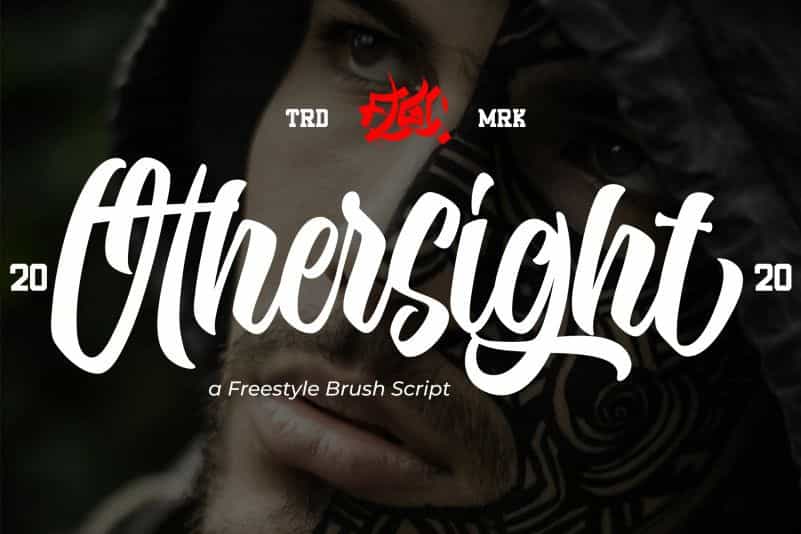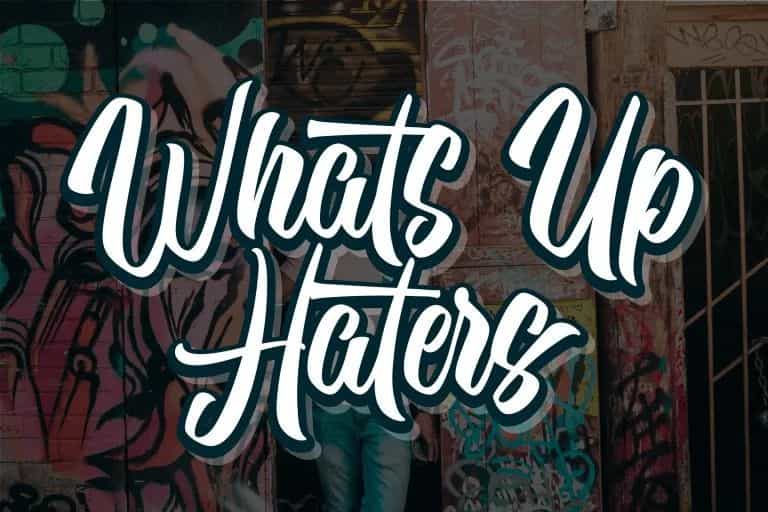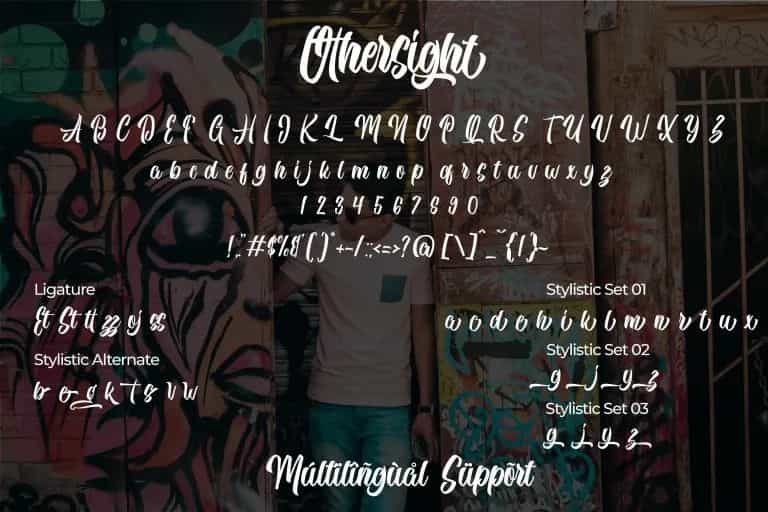
Othersight Font is a freehand brush script font. It’s a hand-made font display that has a classic poster inspiration. It’s a splendid handwritten font. Made with naturally handwritten. The typeface will improve the beauty and effectiveness of your design.